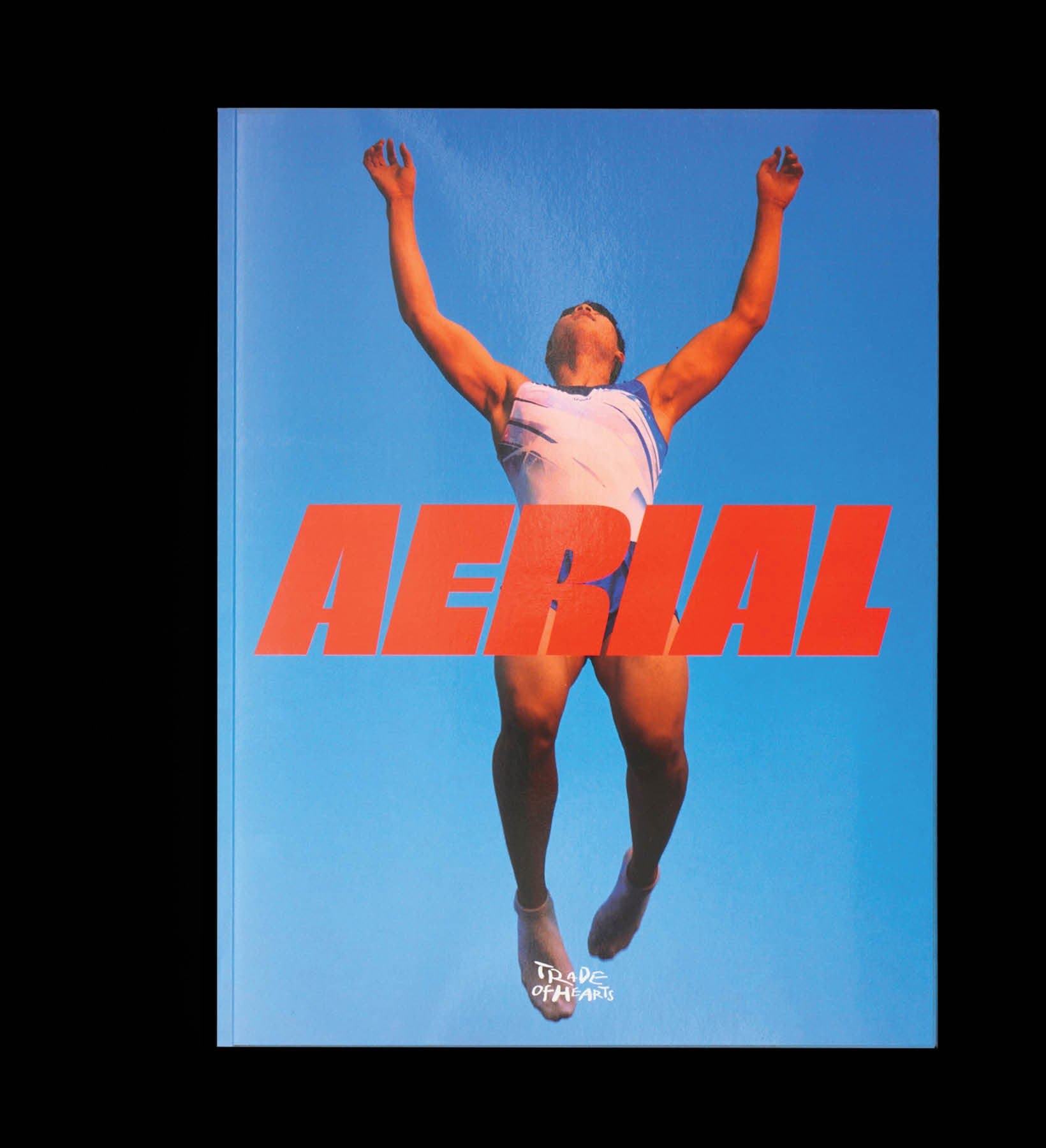
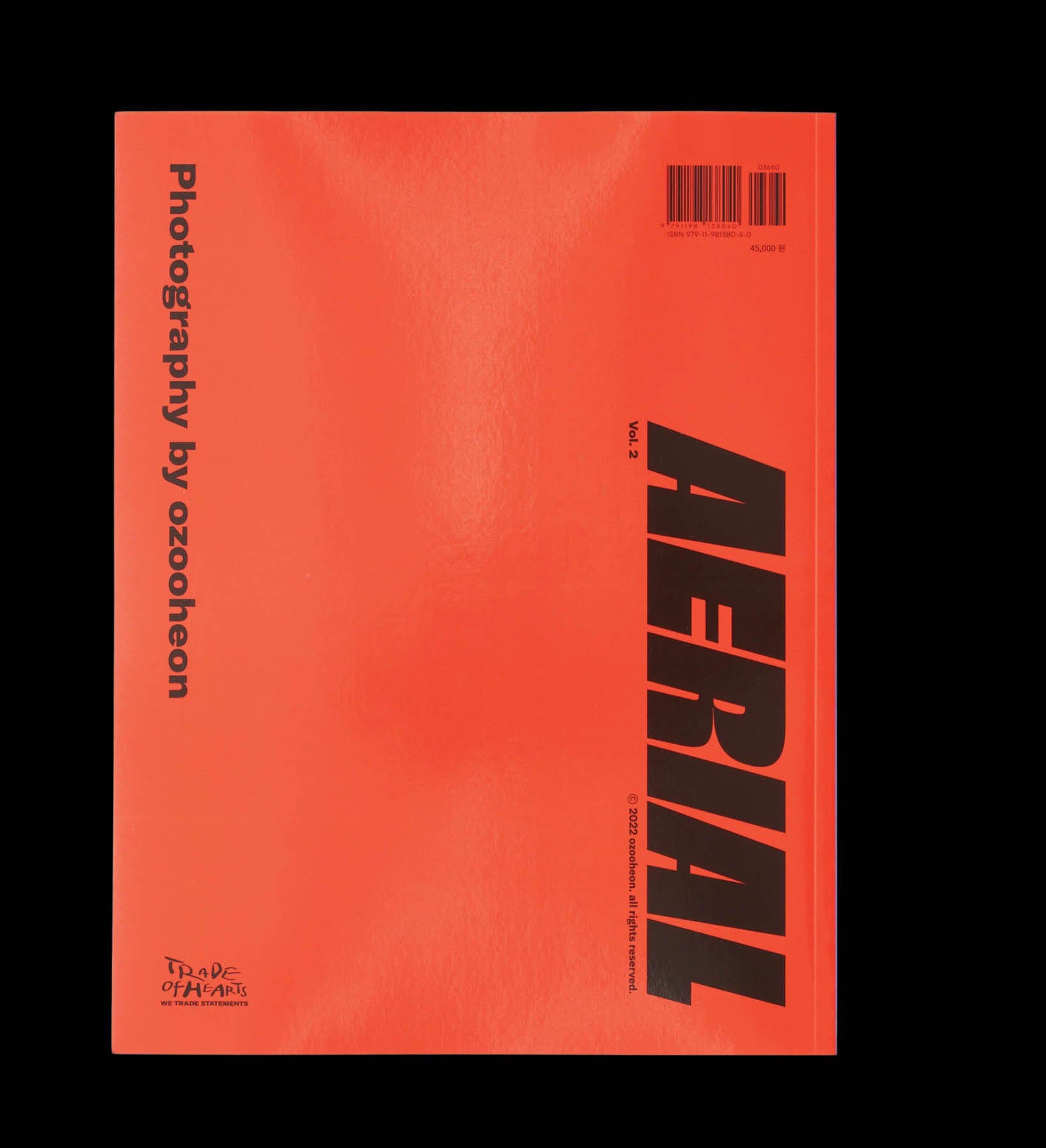
Aerial documents the Seoul Physical Education High School's gymnastic team, focusing on the students during their concentrated hours of training. "Through my work, I wanted to focus on the ‘process’ rather than a clear ‘result’," says author Ozooheon. The Korean photographer released Aerial in the spring of 2023 through Trade of Hearts, a Seoul-based independent book publisher. "That is why I decided to work with athletes as the subject for my images. I believed that by loosely agreeing on the time, method, guidelines, and conditions with the subjects, I could work on this project with ‘a long breath’.” The book's title -- prominently featured on the cover and back -- is set in Trois Mille.
Marc Rouault's futuristic grotesk is an homage to Roger Excoffon and a dynamic expression of what we call "internal contrast." The spark of this exciting visual style finds its most concentrated expression in the Black weights of Trois Mille, so we love that Aerial is set in Trois Mille Black Italic 15. Set in red over a body caught "still in motion," the title suggests both forward momentum and an anchor.
Ozooheon expands further about the project:
“We have all heard the phrase “the beauty of incompleteness” somewhere. This has always been of huge interest for me since I was young. As a result, I have begun to look at ‘humanity’ as the subject of my portraiture work of documentary photography. ‘Aren’t all humans incomplete beings?’ This personal thought made me wonder what it would be like to photograph those in the ‘incomplete’ stage of life, particularly teenagers.”
“Quietly and calmly, I tried to capture the subjects and the burning passion within them. But, as it happened this year and last year [with COVID], I am always an outsider with an invisible wall in front of me. However, to build a relationship with them and for new things to happen, I needed to be deeply involved.
“The process of training is like pushing to the limit by using just one’s own body without any tools or equipment. It seems like a lonely place. Maybe it’s the moment when one confronts oneself. If I were the gymnast, I would think that I’m in conversation with the inner me when I am spinning, jumping, or doing repetitive actions. Gymnastics is a very lonely sport. The aspect of a lone fighter fighting itself makes me feel in awe. These athletes have specialized in one sport, gymnastics, and their bodies are trained in skills and techniques. And the images they create through their movements align with my work. The sport is definitely a work of art. The lines created by stretching, spinning, and jumping are so beautiful from those who have trained to the extreme.
“This is, at its core, a documentary that uses my preferred method of ‘long-breath storytelling.’ It’s centered around people and the behind-the-scenes stories they show. Every human story has an unfinished process and within that, I think there is definitely some beauty to explore. In the end, it seems like it is a story about imperfect humans. It’s about how beautiful it is for many imperfect humans to strive for completion in their unfinished process. Therefore, this project is about stories of imperfect humans.”